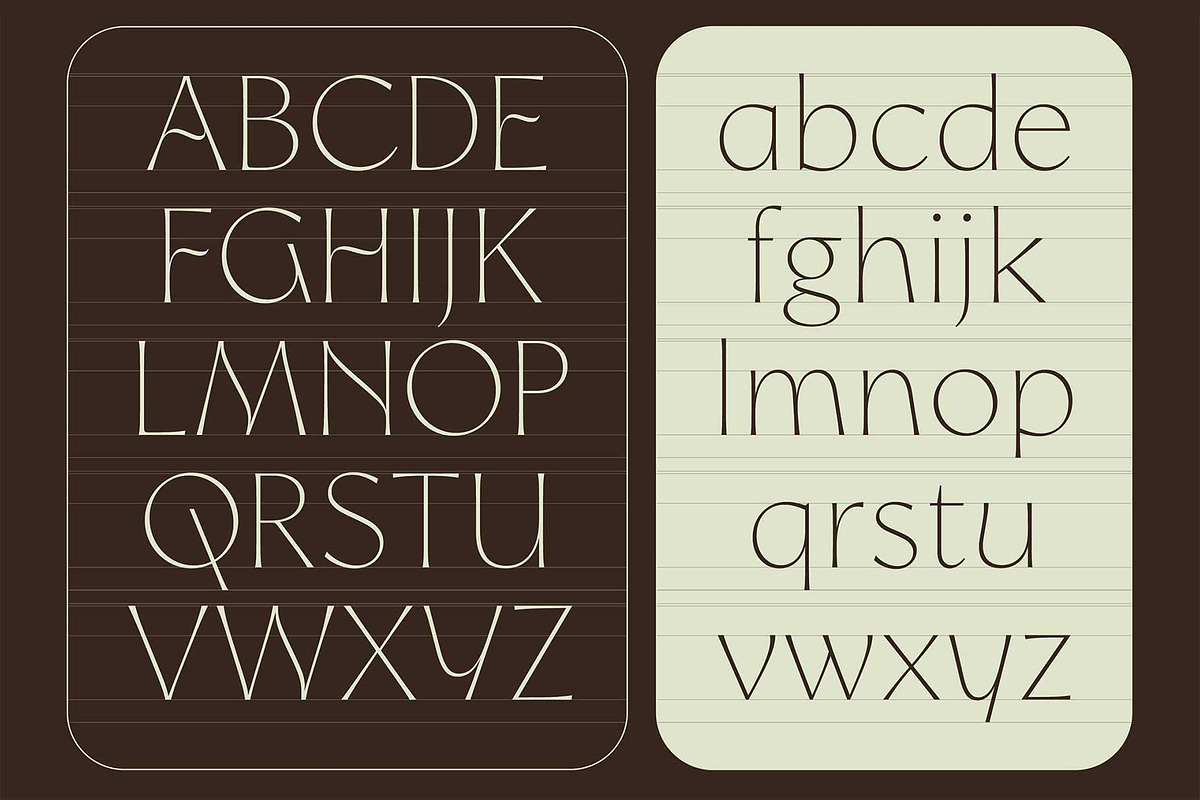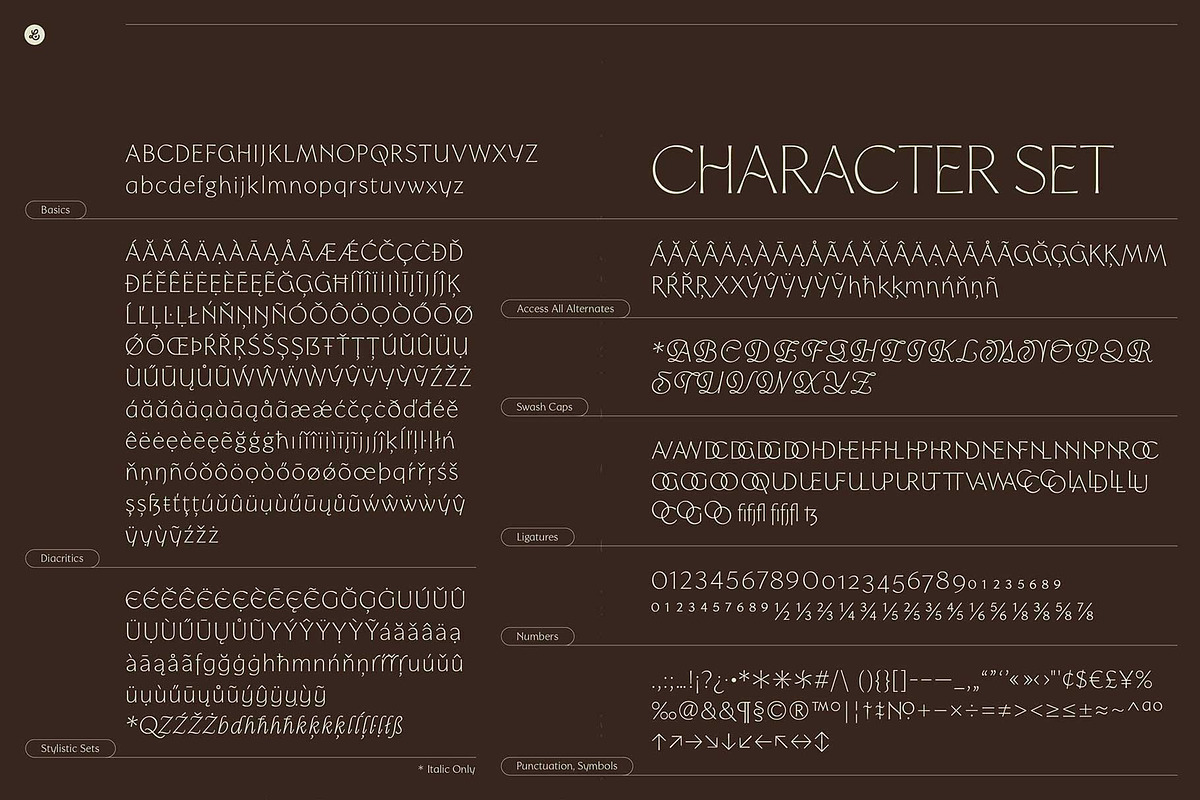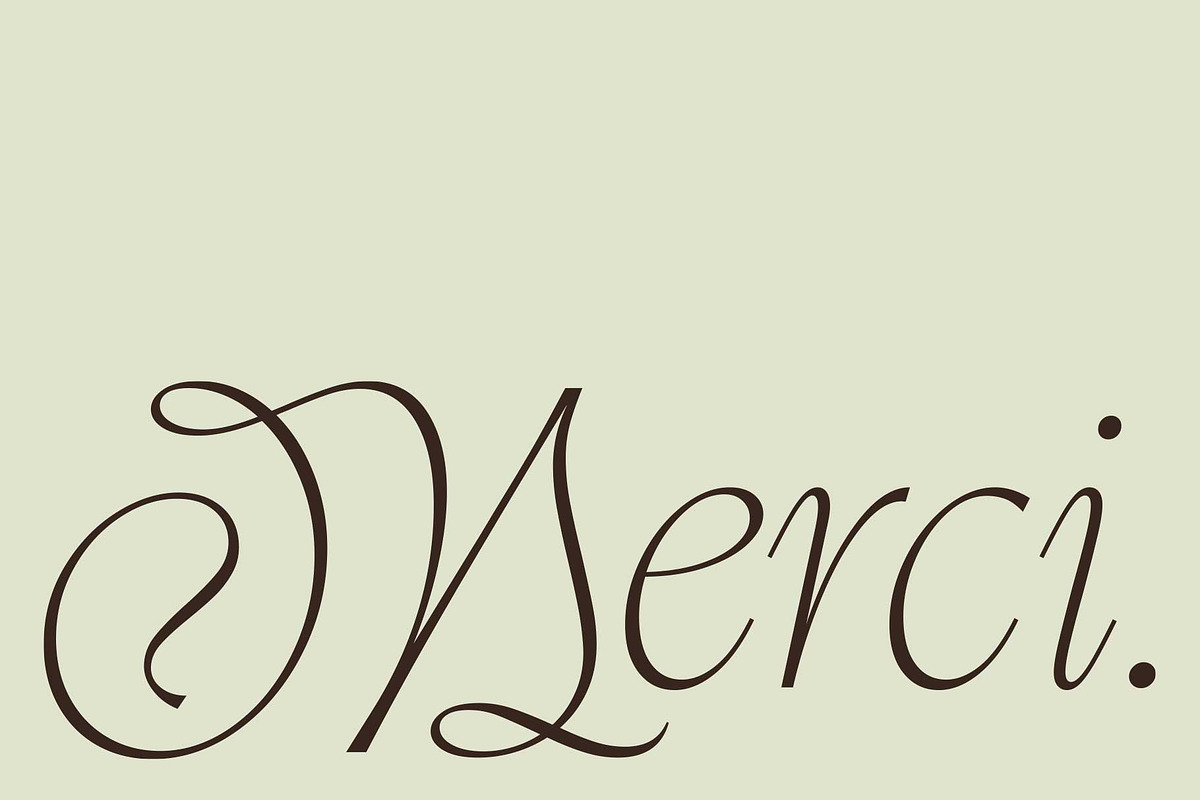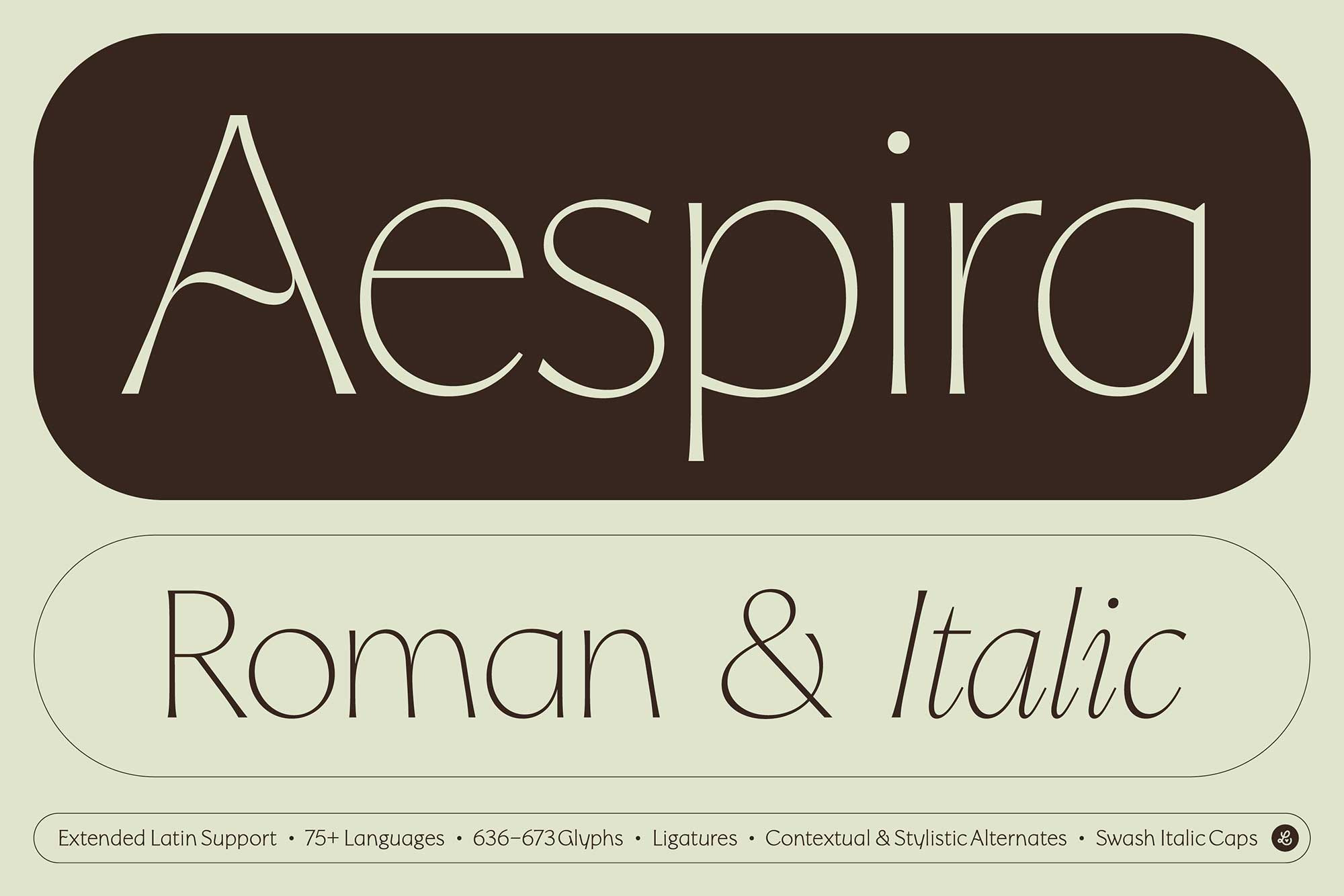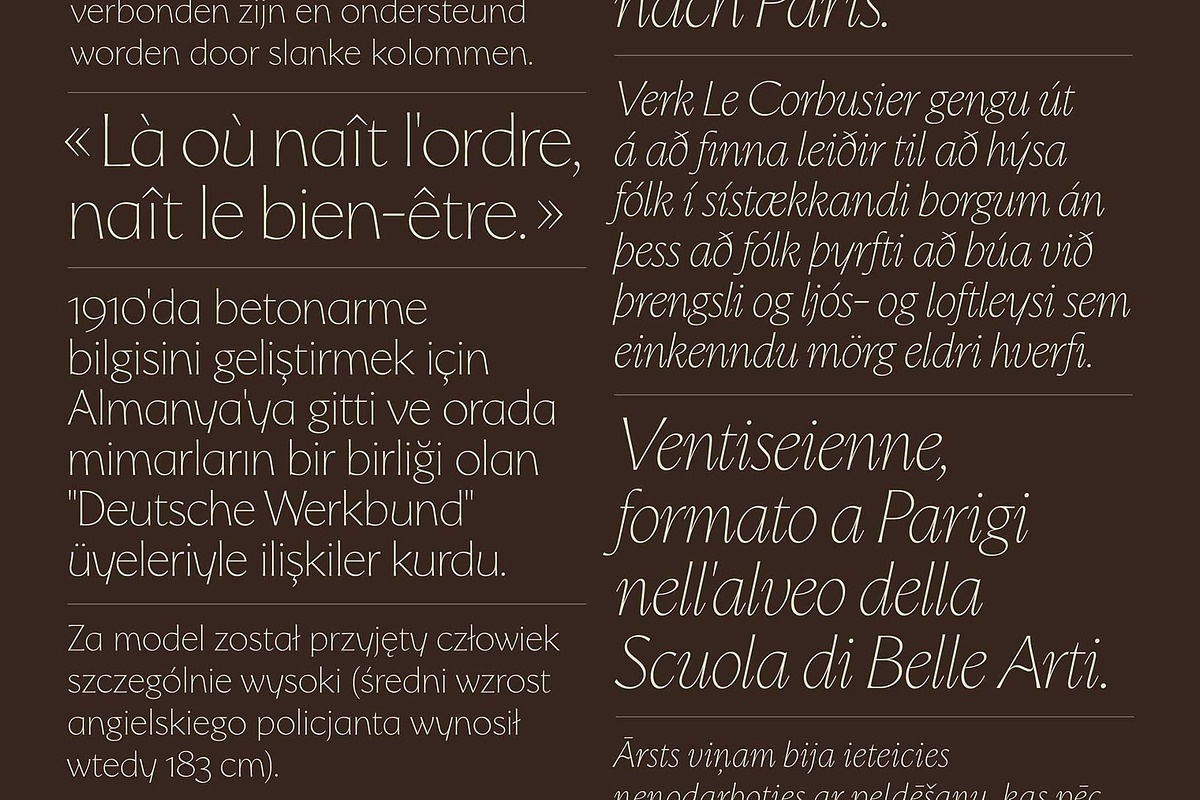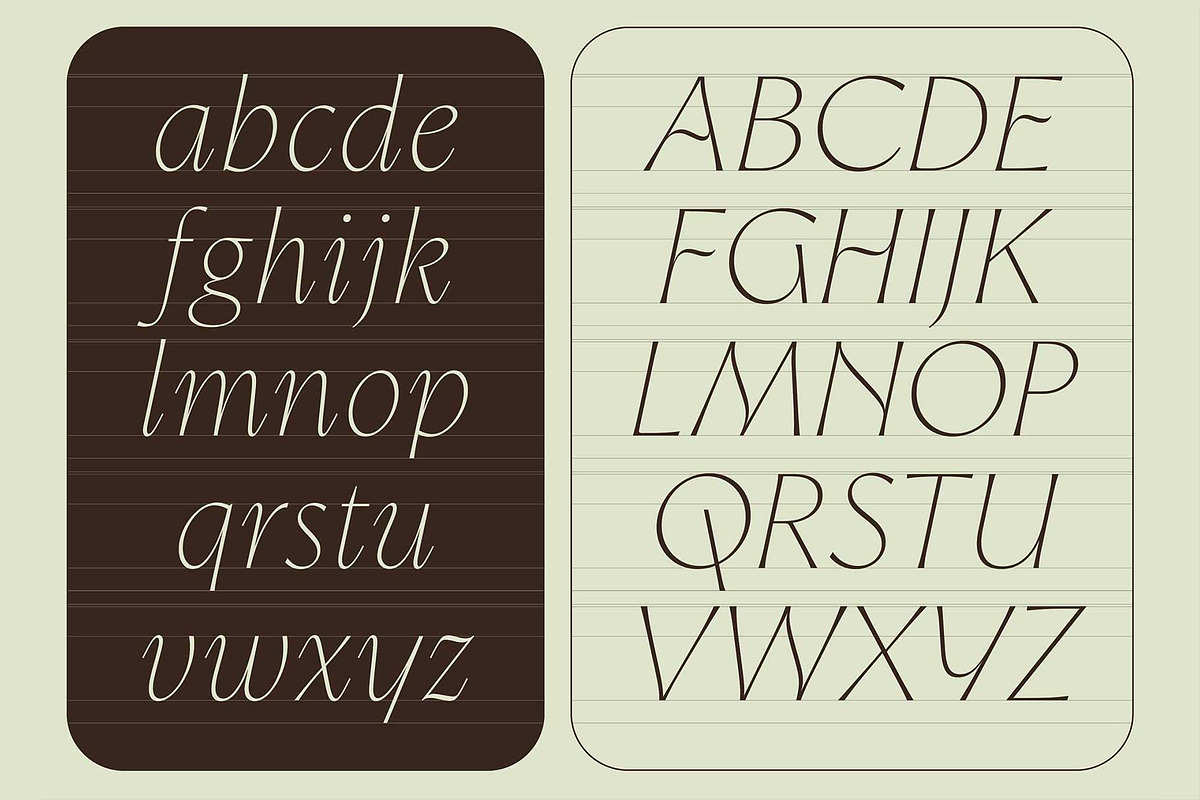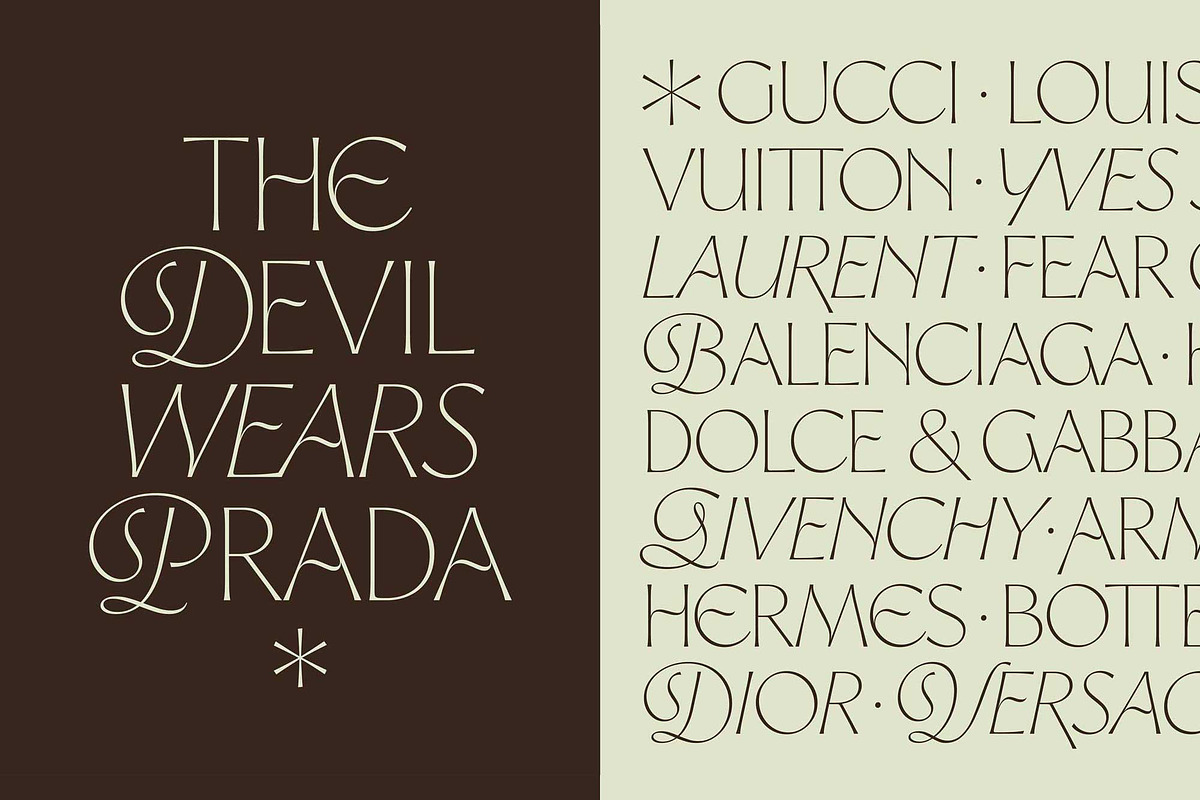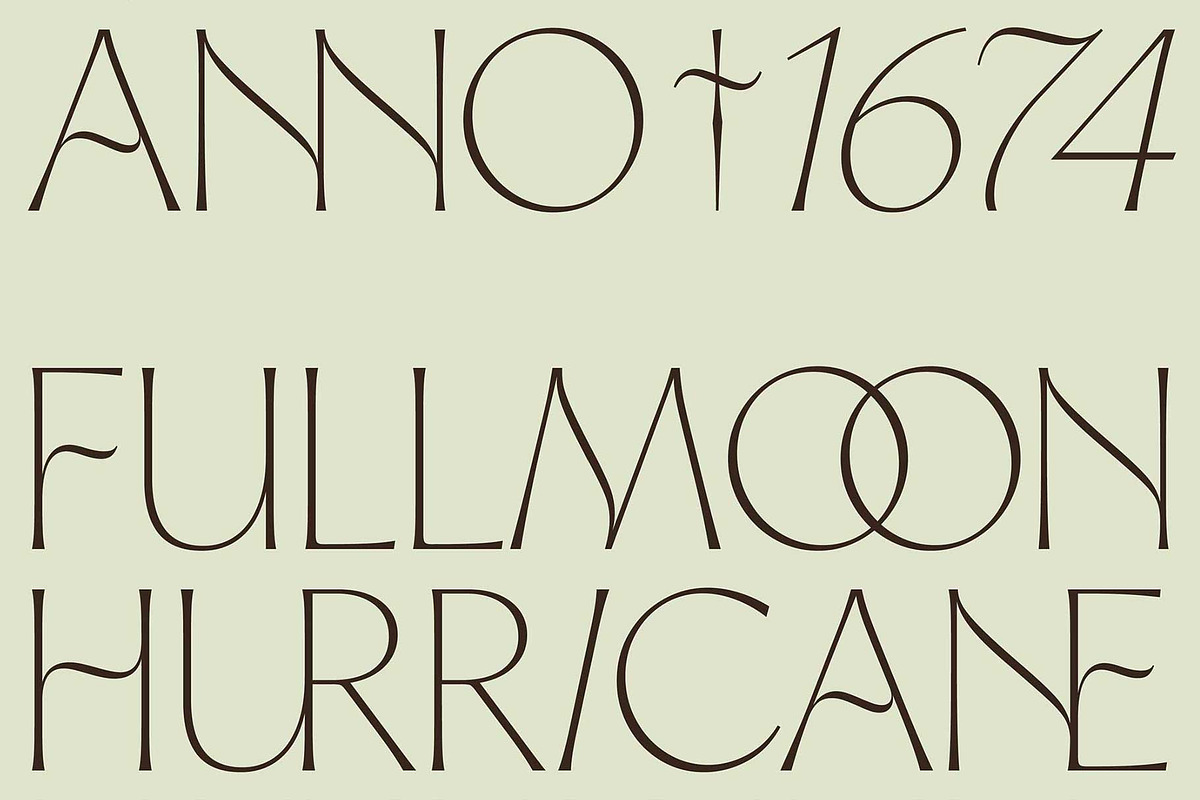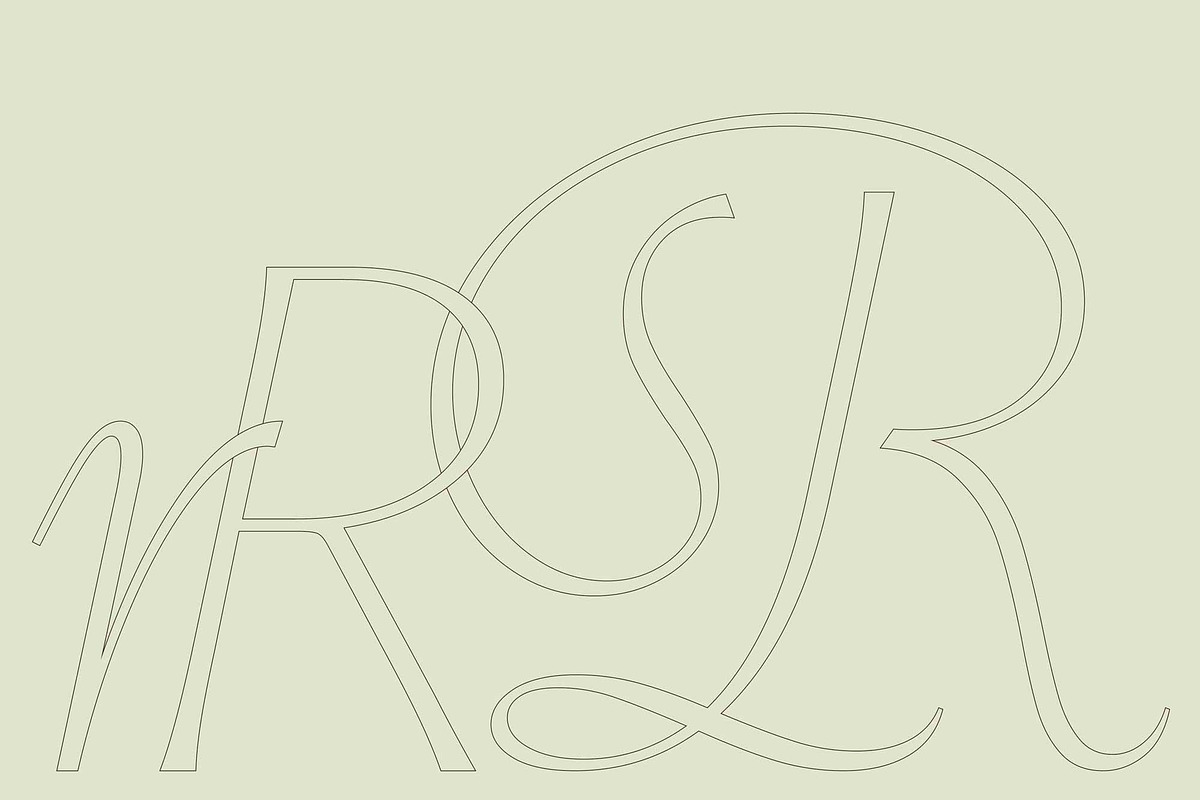
Aespira Typeface
Aespira is a gracious nod to classic roman titling typefaces. Taking inspiration from historic letterforms for its construction, the typeface also blends in novel and dynamic shapes. The combination of an oblique contrast system and gently flared strokes, gives the typeface a distinguishable liveliness, which is fully expressed in its more serif-like true italic.
The Display typeface features 2 styles: Roman and Italic. Its extended Latin character set features 636 Roman glyphs and 673 Italic glyphs, supports over 75 languages and includes a wide range contextual and stylistic alternates, lowercase and capital ligatures & more… The Italic style also features calligraphic alternates and a swash capital alphabet.